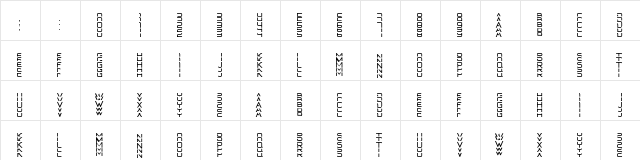
Sansdria Regular
Design Context for Sansdria Typeface
Sansdria is a composed and adaptable typeface that performs quietly and consistently across a wide range of design contexts.
Pro Tip: Use Sansdria in both headline and body roles to test its range before committing to a single application.